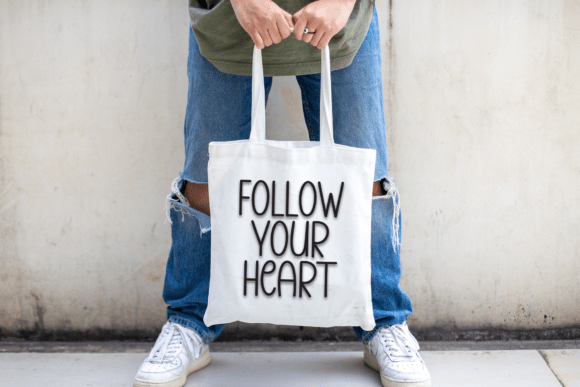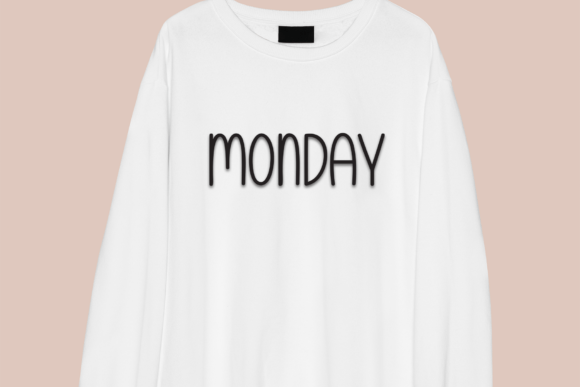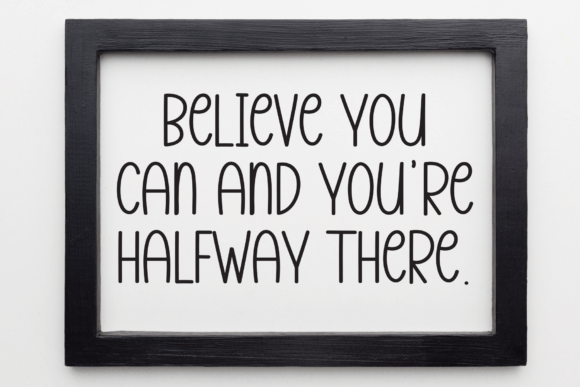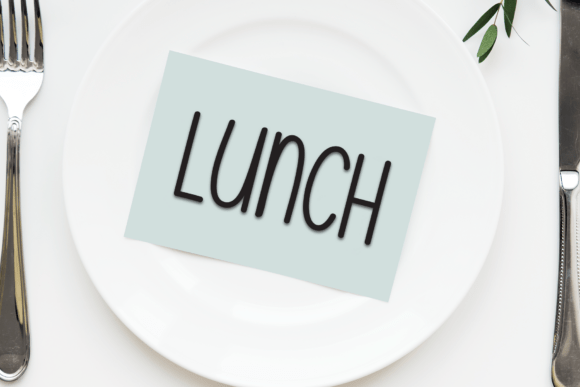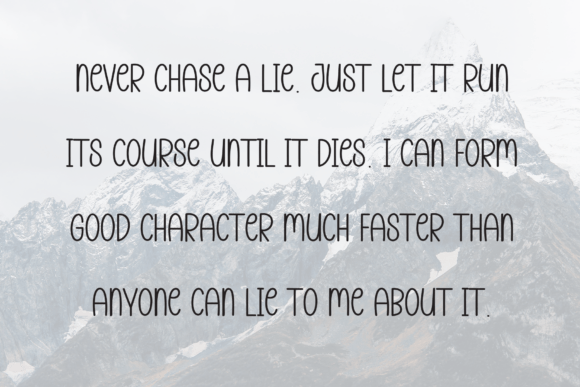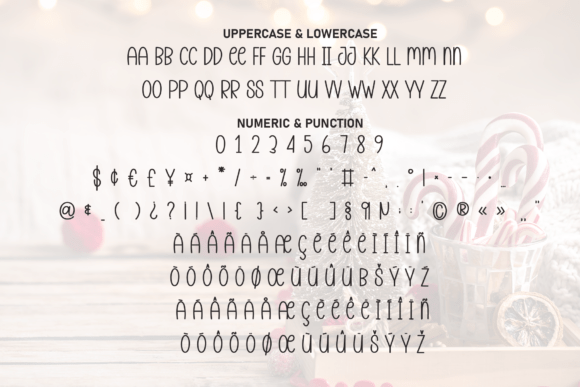
The Magic of Christmas Religious Font: A Designer’s New Best Friend
Ah, the quest for the perfect font – a journey every designer knows all too well. I recall working on a Christmas-themed project last year, struggling to find a font that captured the warmth and joy of the season. That’s when I stumbled upon Christmas Religious Font, and it quickly became my go-to for adding a touch of festive charm to my designs. In this article, I’ll share my experience with this lovely font, its features, and how to make the most of it in your projects.
First Impressions: A Friendly and Versatile Font
Christmas Religious Font is a casual and neat display font that strikes a perfect balance between simplicity and a friendly, approachable vibe. Its clean lines, balanced letterforms, and subtle rounded edges give it a modern handwritten feel with a polished finish. This font is ideal for a wide range of applications, including branding, headlines, packaging, and digital content, where it adds a warm and inviting touch.
Here’s what I love about Christmas Religious Font:
- ✨ Clean and readable design: Perfect for headlines and body text.
- ✅ Versatile style: Works well in both digital and print formats.
- 🎉 Festive feel: Adds a touch of Christmas cheer to any design.
As for quirks or limitations:
- 🤔 Limited glyphs: While it has a good range of characters, it might not cover every special character you need.
- ⚠️ Not suitable for body text: While it’s great for headlines, it might not be the best choice for longer blocks of text.
- Make use of OpenType features, such as glyphs and stylistic alternates, to add variety to your text.
The Story Behind Christmas Religious Font
Imagine a designer, inspired by the joy and simplicity of handwritten typography, creating a font that captures the essence of the holiday season. With a focus on clean lines and friendly letterforms, Christmas Religious Font was born. It’s a font designed to bring warmth and cheer to any project, from festive greetings to holiday branding.
Q: Does Christmas Religious Font support OpenType features?
A: Yes, Christmas Religious Font comes with a range of OpenType features, including glyphs and stylistic alternates, which can be accessed in compatible software like Adobe Photoshop and Illustrator.